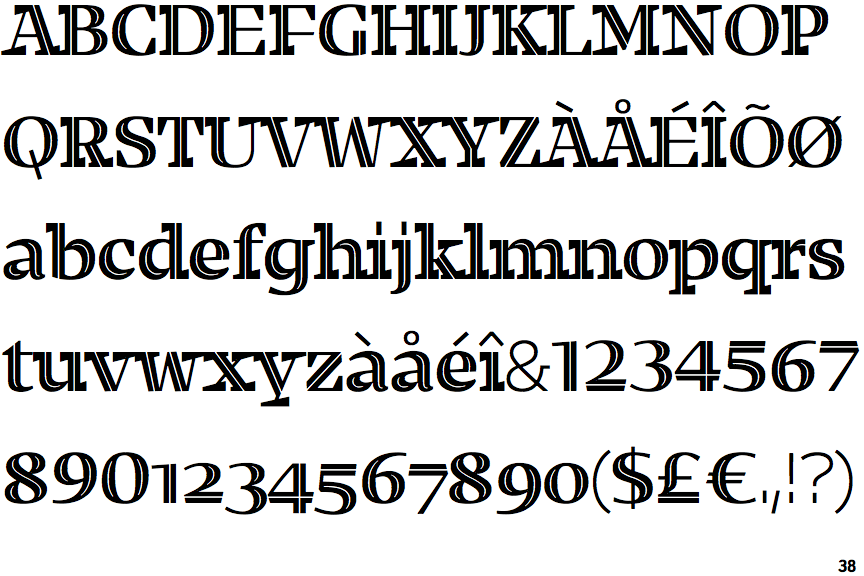
Audree
A type construction system that allows you to choose between 15 different serif shapes, two construction models, high or low contrast, and stencil or inline options, making a total of 240 different possible fonts.
Designers: Nikola Djurek and Marko Hrastovec
Year: 2012
Publisher: Typonine
From a type system that allows you to generate a large number of alternative font variants.
Among the typefaces chosen in the review Our Favorite Typefaces of 2013 by the on-line journal Typographica.
An OpenType font that includes both lining and oldstyle figures.